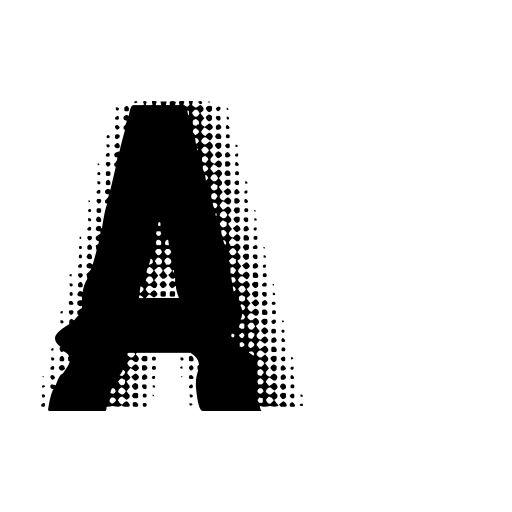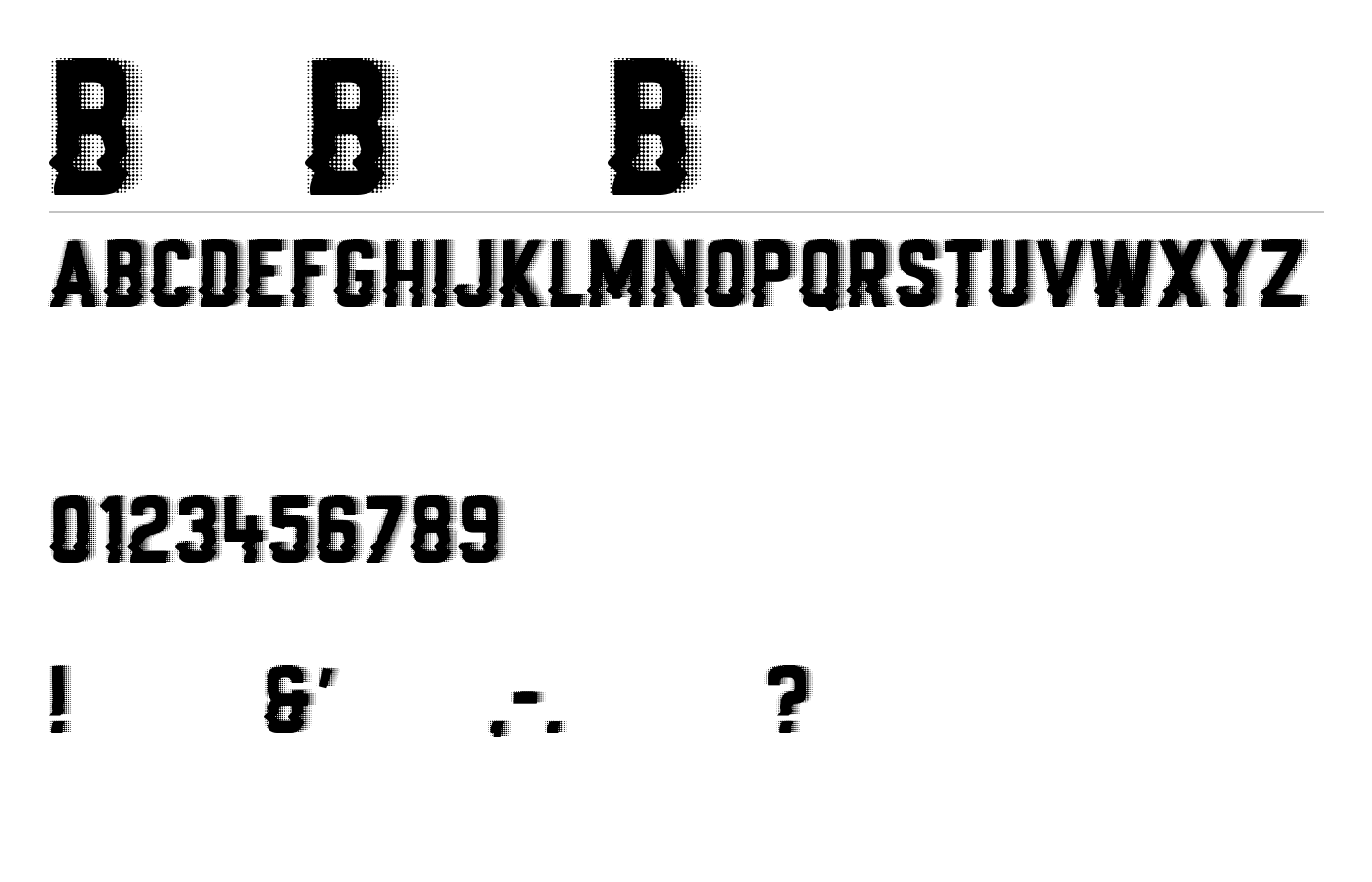
Big Bad Bugs is a bold, condensed slab serif font with a distressed, glitch-like texture that gives it a rugged and dynamic personality. Its strong geometric shapes combined with irregular edges create a striking vintage-industrial vibe, perfect for edgy posters, branding with attitude, or eye-catching headlines. This font works well where a bold statement is needed, bringing energy and a touch of rebellious character to any design.
Big Bad Bugs Font